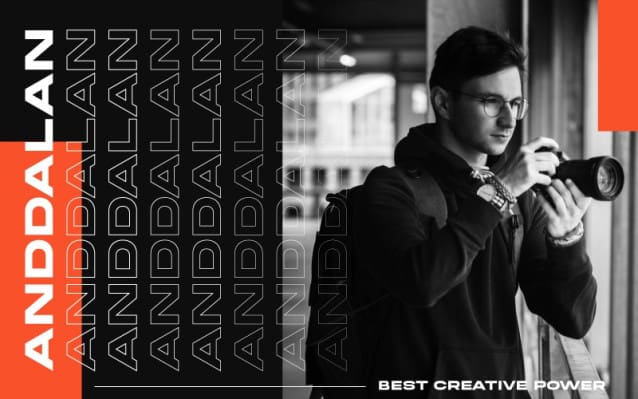
Anddalan Font
Anddalan Font, are typefaces and sans-serif with a simple, modern style built for the purpose. It would be a perfect choice to design posters, affiches, logos, t-shirt and magazine prints, eye-pleasing typographic designs and more.